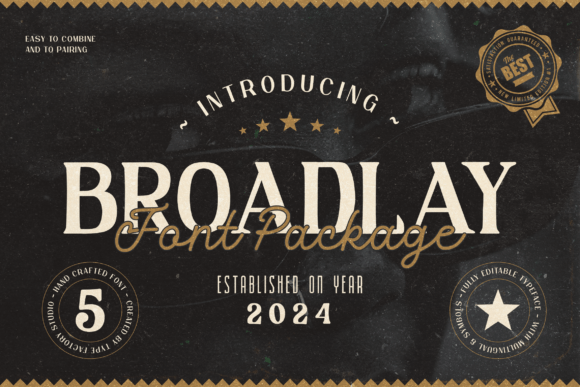
Broadlay Font: Elevate Your Designs with Timeless Vintage Charm
In the realm of typography, few font packages manage to capture the essence of bygone eras as effectively as Broadlay. This comprehensive vintage font package is a treasure trove of classic typefaces, meticulously crafted to bring the charm of the past to your modern design projects. Whether you’re a designer looking to infuse your work with nostalgia or a brand seeking to evoke a sense of timelessness, Broadlay is the perfect solution.
The Broadlay Collection: A Diverse Range of Vintage Typefaces
The Broadlay font package is a carefully curated collection of typefaces inspired by classic signage, advertisements, and typography from the early 20th century. Each font in the package has been meticulously crafted to evoke the spirit of a bygone era, with intricate details and subtle nuances that set them apart from more generic typefaces.
From bold and dramatic to elegant and refined, the Broadlay collection features a diverse range of styles to suit any design project. Whether you’re looking to create a vintage-inspired poster, a retro-themed brand identity, or a stylish packaging design, Broadlay has the perfect font to help you achieve your vision.
Key Features of Broadlay Font
- Comprehensive font package: Broadlay features a wide range of typefaces, each with its own unique character and charm.
- Vintage inspiration: The fonts in the Broadlay package are inspired by classic signage, advertisements, and typography from the early 20th century.
- High-quality design: Each font in the Broadlay package has been meticulously crafted to ensure exceptional quality and attention to detail.
- Versatile: Broadlay fonts are suitable for a wide range of design projects, from posters and packaging to branding and advertising.
The Benefits of Using Broadlay Font
So why choose Broadlay font for your design projects? Here are just a few benefits of using this comprehensive vintage font package:
- Add a touch of nostalgia: Broadlay fonts are perfect for designers looking to add a touch of nostalgia to their work.
- Stand out from the crowd: With its unique and distinctive typefaces, Broadlay can help you create designs that stand out from the crowd.
- Timeless appeal: The vintage inspiration behind Broadlay fonts gives them a timeless appeal that won’t date quickly.
- Versatility: The diverse range of styles in the Broadlay package makes it suitable for a wide range of design projects.
Using Broadlay Font in Your Designs
So how can you use Broadlay font in your designs? Here are a few ideas to get you started:
- Retro-themed branding: Use Broadlay fonts to create a retro-themed brand identity that evokes a sense of nostalgia and timelessness.
- Vintage-inspired posters: Create eye-catching posters that evoke the spirit of a bygone era with Broadlay fonts.
- Packaging design: Use Broadlay fonts to add a touch of vintage charm to your packaging designs.
- Advertising: Use Broadlay fonts to create eye-catching advertisements that stand out from the crowd.
Tips for Getting the Most Out of Broadlay Font
Here are a few tips for getting the most out of Broadlay font:
- Experiment with different styles: With its diverse range of styles, Broadlay offers endless possibilities for creative experimentation.
- Mix and match: Don’t be afraid to mix and match different Broadlay fonts to create a unique and eye-catching design.
- Pay attention to typography: Typography is a critical element of any design project. Make sure to pay attention to the typography in your designs and use Broadlay fonts to enhance the overall aesthetic.
In conclusion, Broadlay font is a comprehensive vintage font package that offers a unique and timeless solution for designers looking to add a touch of nostalgia to their work. With its diverse range of styles, high-quality design, and versatility, Broadlay is the perfect choice for any design project. Whether you’re a designer, brand, or simply someone looking to add a touch of vintage charm to your work, Broadlay is sure to impress.